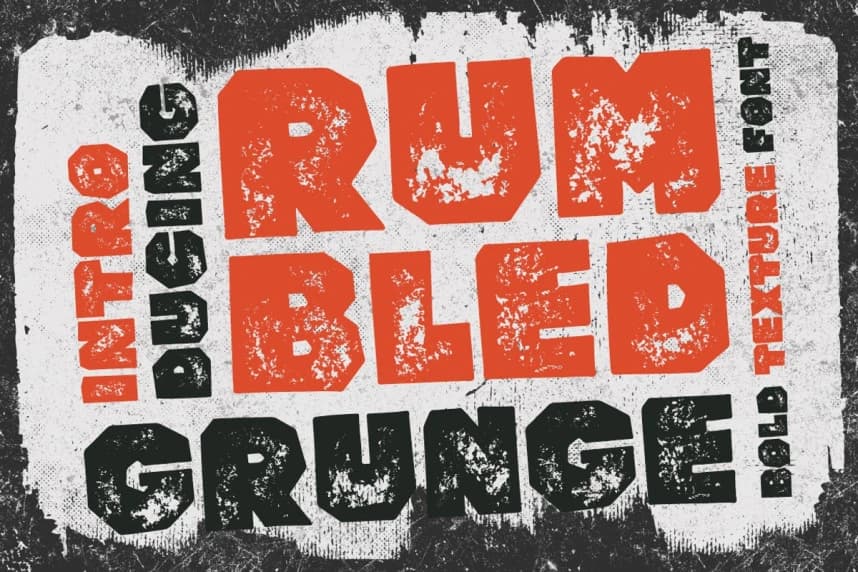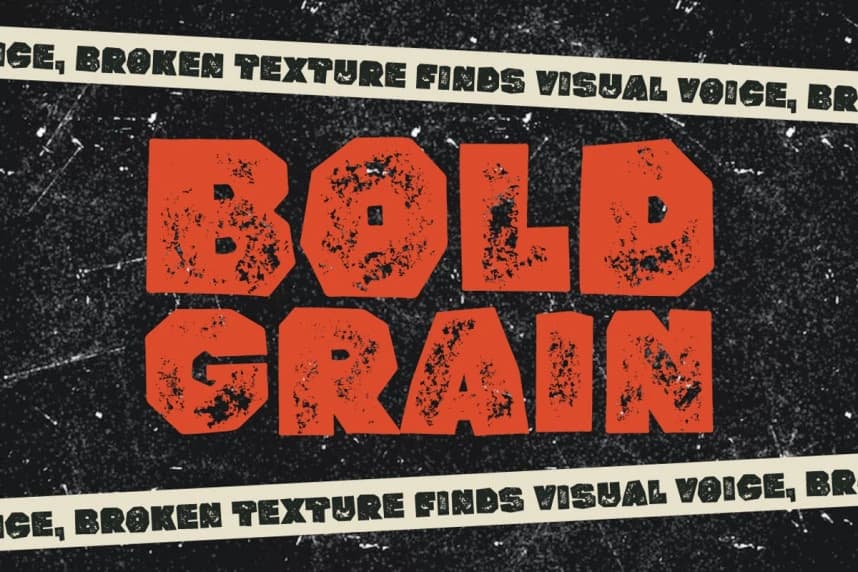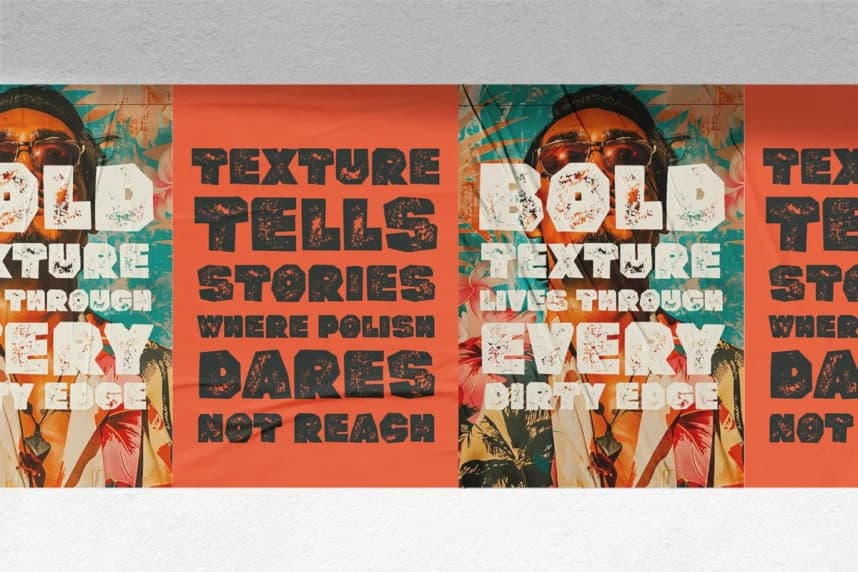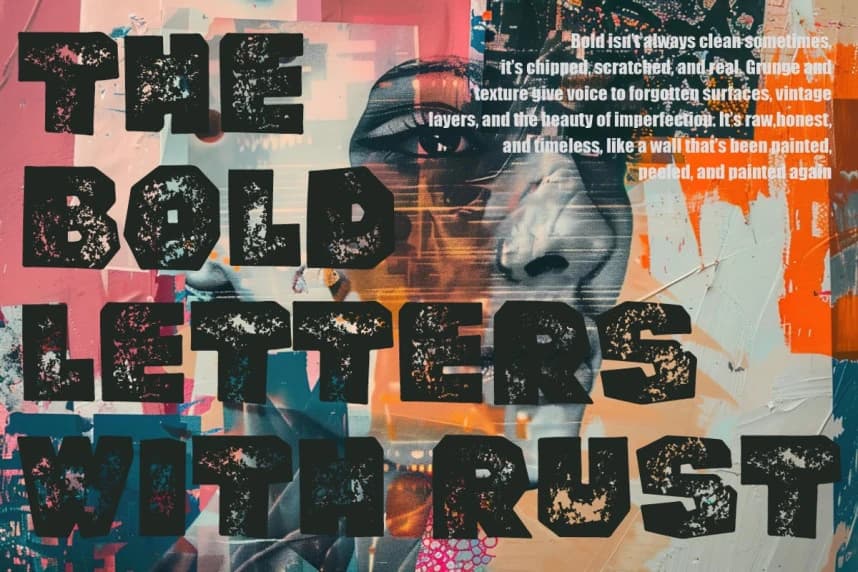
Rumbled Grunge Font
Rumbled Grunge Font is a bold textured display font designed to scream with grit and vintage character. Every letterform is carefully crafted with a rugged, distressed texture that mimics worn-out paint, peeled posters, and weathered urban surfaces.